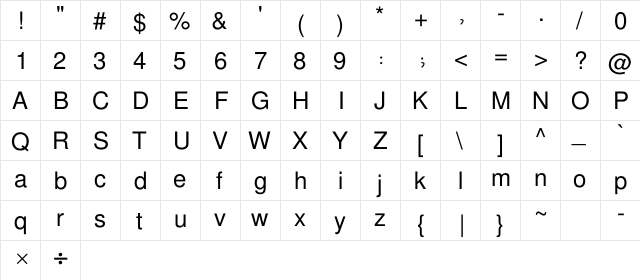
Mukti Narrow Regular
| Foundry | Mukta Bangla Font Project |
| Designer | Dr Anirban Mitra |
Design Context for Mukti Narrow Typeface
Mukti Narrow offers clean, dependable letterforms without strong stylistic allegiance, making it a practical choice for designers who need flexibility. Its narrow stance lets it pack a punch even in space-constrained designs.